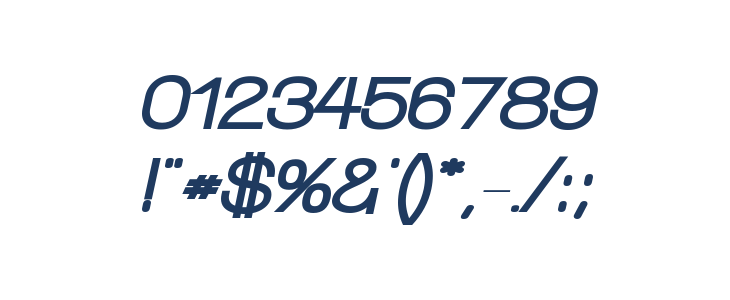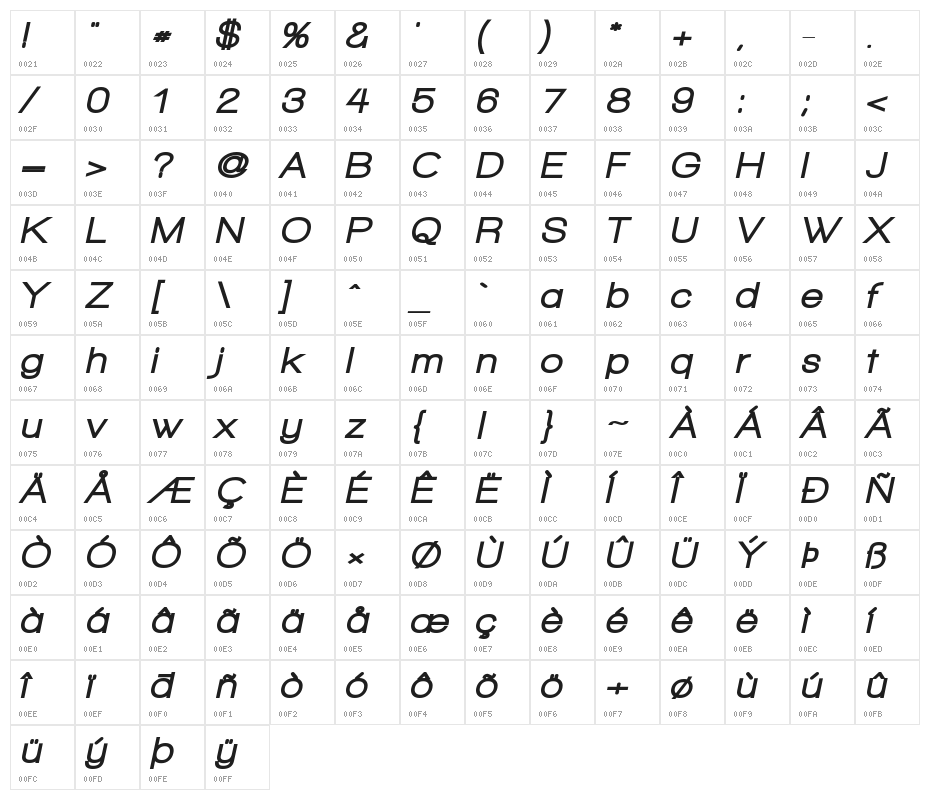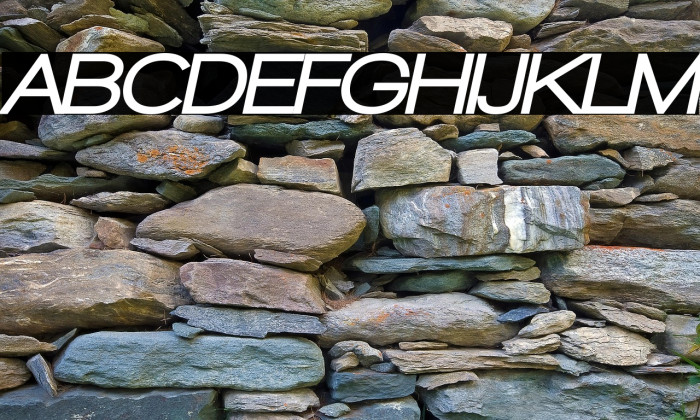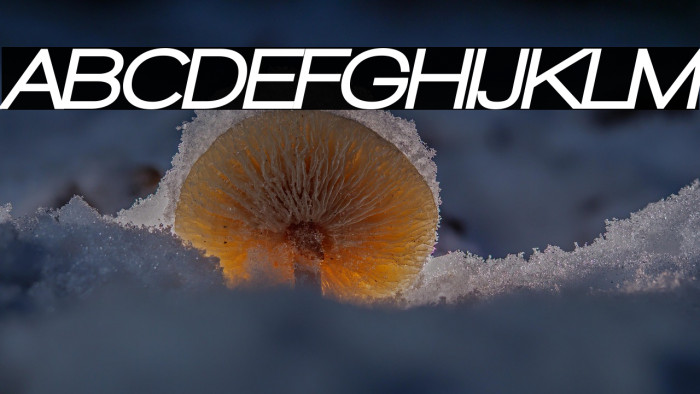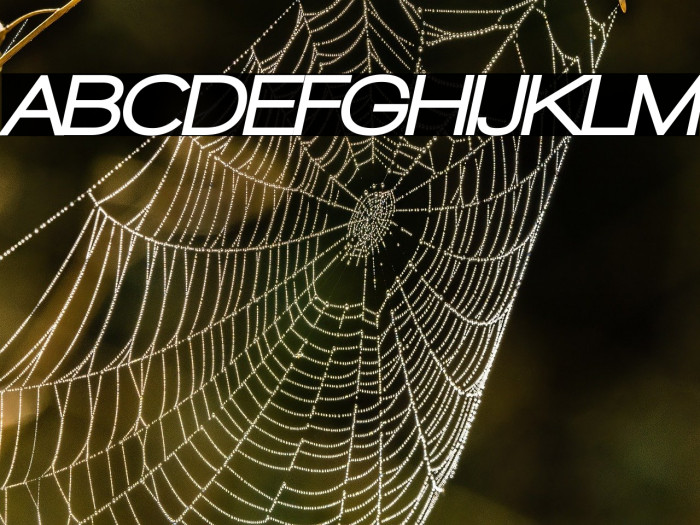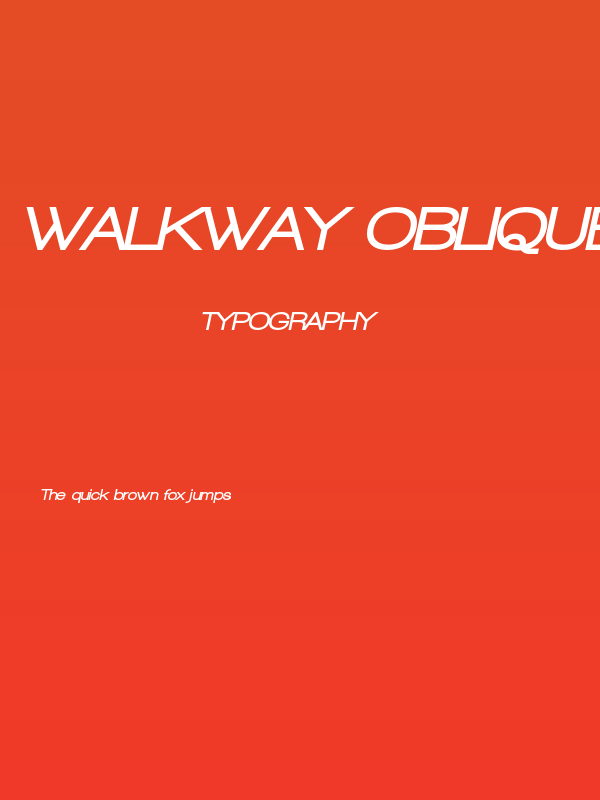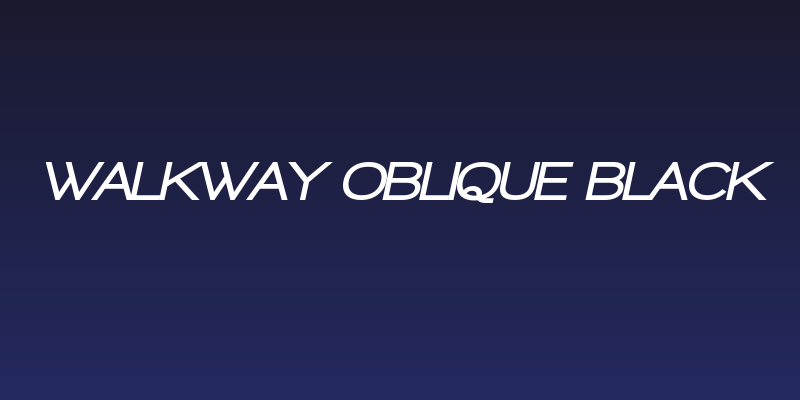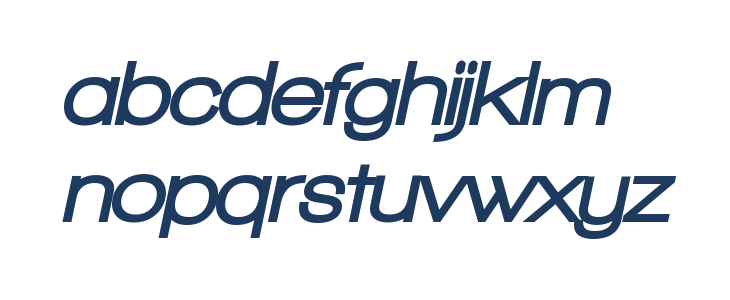
Walkway Oblique Black Font
Walkway Oblique Black Description
This font exhibits a sleek and modern design with an oblique orientation, giving it a dynamic and forward-leaning appearance. The characters are bold and have a consistent stroke weight, contributing to a strong visual impact. The uppercase and lowercase letters maintain a uniform style, with smooth curves and sharp edges that enhance readability. The numerals are equally bold and align well with the overall aesthetic. Special characters are included, matching the font's bold and oblique style, making it versatile for various applications.
| Proposed Projects | Ideal for branding, advertising, and headlines where a strong, modern impression is desired. |